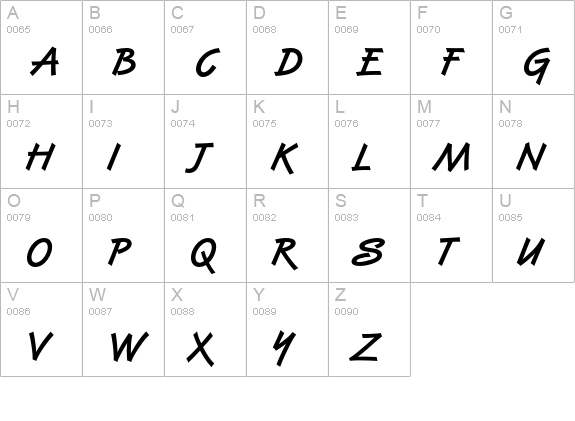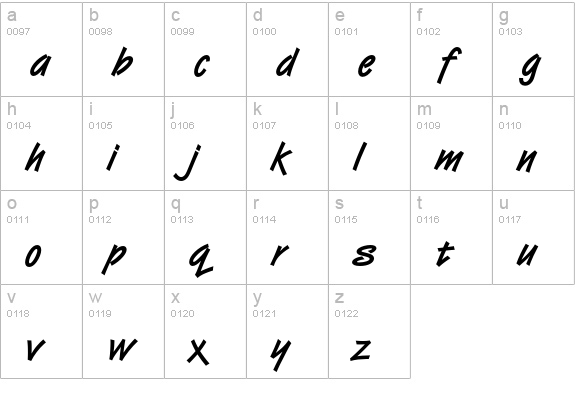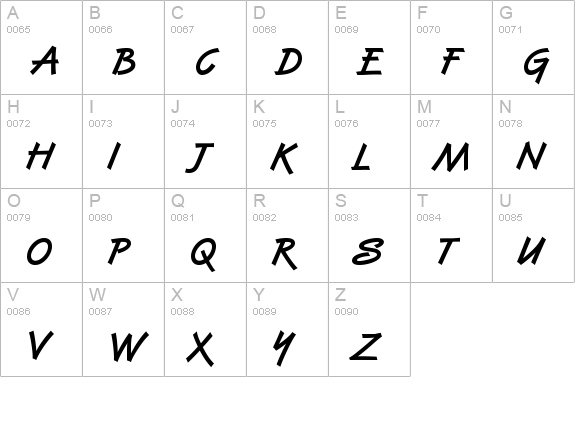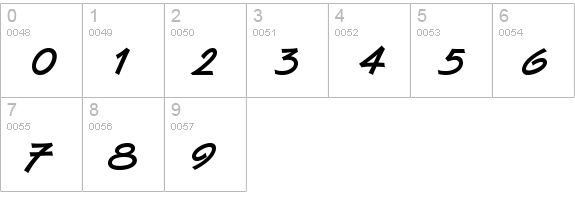
Van Dijk Std Bold is a strong, high-contrast variant in the Van typeface family \xE2\x80\x94 well suited to headlines, attention-grabbing titles, and strong calls-to-action.
Van Dijk Std Bold is a versatile and modern font that exudes confidence and sophistication. With its bold and commanding presence, this typeface is perfect for making a strong statement in any design project. The thick and well-defined strokes of the letters ensure optimal legibility, making it suitable for both print and digital media. This font is freely available to download at FontsMarket.com, allowing designers and creatives to access this powerful tool without any hassle or cost. Whether you are working on a corporate branding project, a magazine layout, or a website design, Van Dijk Std Bold will elevate your work to new heights. The clean and precise lines of Van Dijk Std Bold add a touch of professionalism to any design, making it ideal for both formal and informal contexts. Its boldness and strong presence make it stand out on any medium, creating a lasting impression on the viewer. With its wide range of characters and glyphs, Van Dijk Std Bold offers endless possibilities for creative exploration. Whether you are looking for a font that commands attention or one that adds a touch of elegance, this typeface has got you covered. Download Van Dijk Std Bold for free at FontsMarket.com and unleash your creativity with this exceptional font. With its bold and contemporary design, it is sure to make a lasting impact on your design projects.